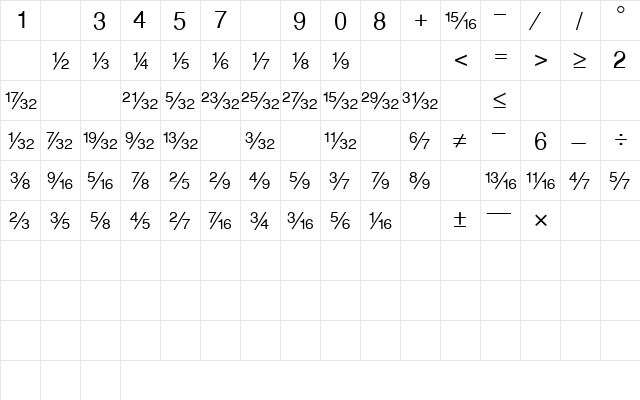
SansFractionsDiagonal Plain
Design Context for SansFractionsDiagonal Typeface
SansFractionsDiagonal offers clean, dependable letterforms without strong stylistic allegiance, making it a practical choice for designers who need flexibility.
Pro Tip: Use SansFractionsDiagonal in both headline and body roles to test its range before committing to a single application.